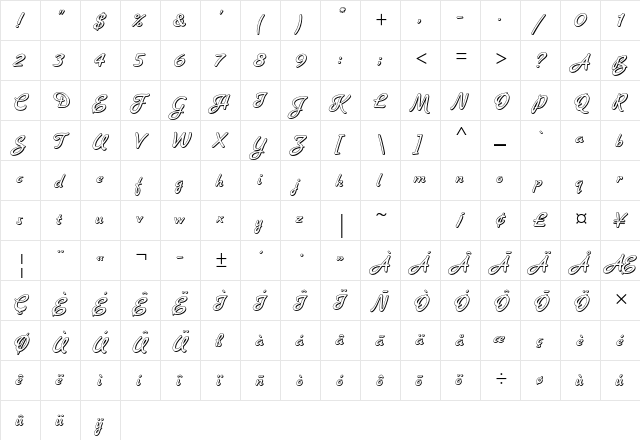
Banner Std Regular
| Designer | Martin Wait |
Design Context for Banner Std Typeface
Banner Std is a composed and adaptable typeface that performs quietly and consistently across a wide range of design contexts.